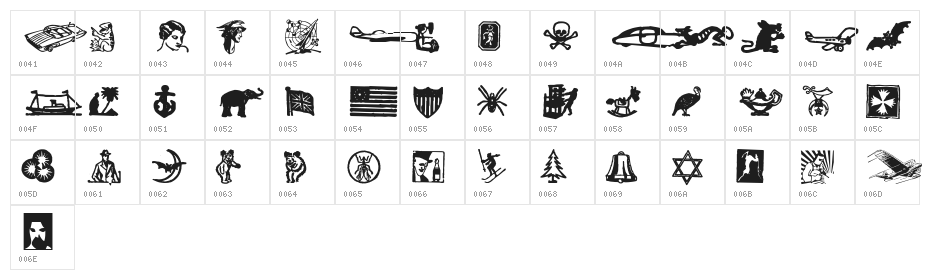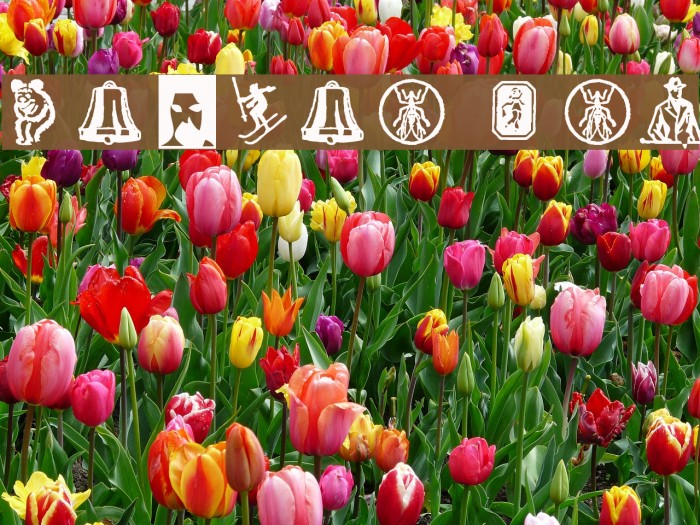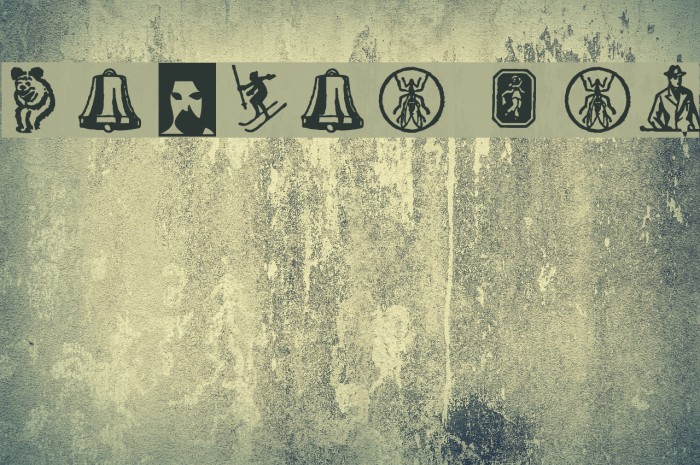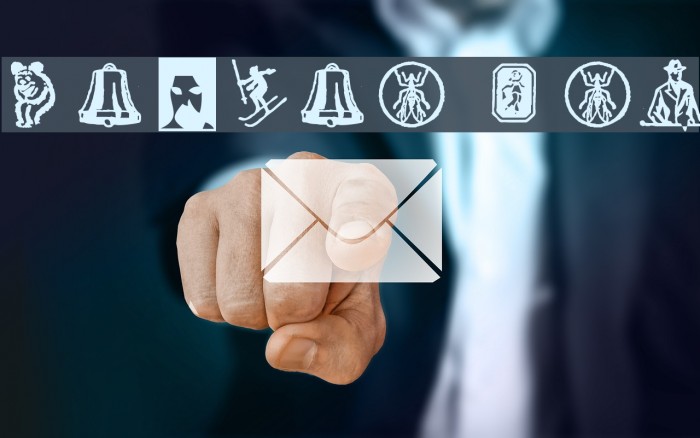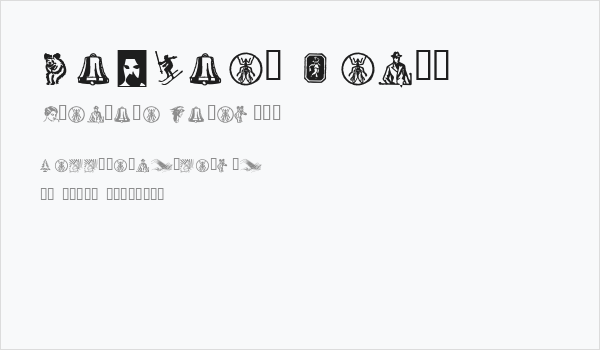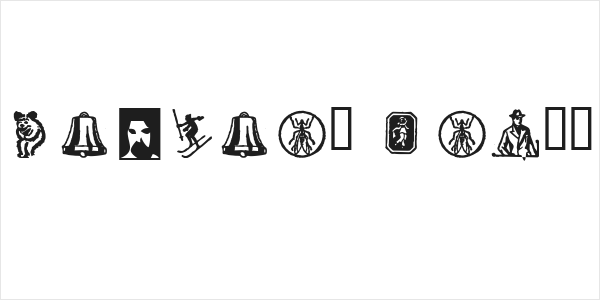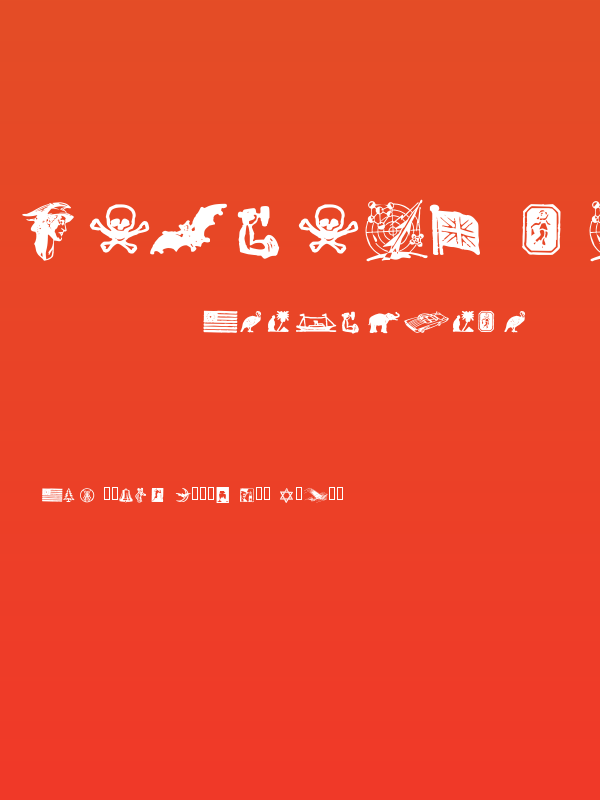
dingies Heavy Font
dingies Heavy Description
A collection of bold, high-contrast pictograms and dingbat illustrations featuring a variety of objects, animals, symbols, and characters in a heavy black silhouette style.
| Overall Style | Decorative, Playful, Bold |
| Use Case | Decorative elements, icons, visual accents, themed designs. |
| Proposed Projects | Posters, flyers, scrapbooking, decorative headings, iconography, themed event materials. |